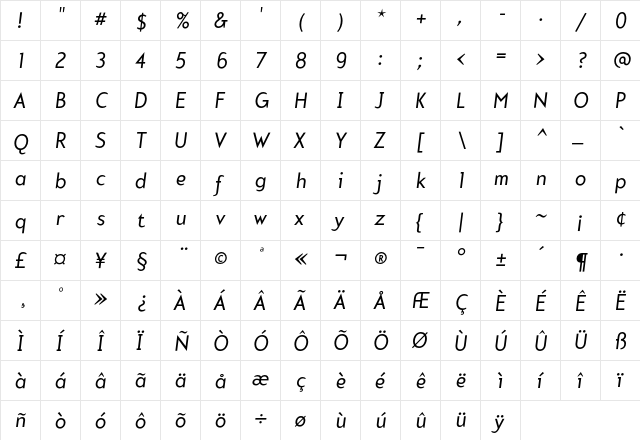
Mercury Italic Font Preview
Mercury Italic
Mercury Italic Font Details
Design Context for Mercury Typeface
Mercury offers clean, dependable letterforms without strong stylistic allegiance, making it a practical choice for designers who need flexibility. The dynamic lean of this cut emphasises speed and emphasis in any layout.